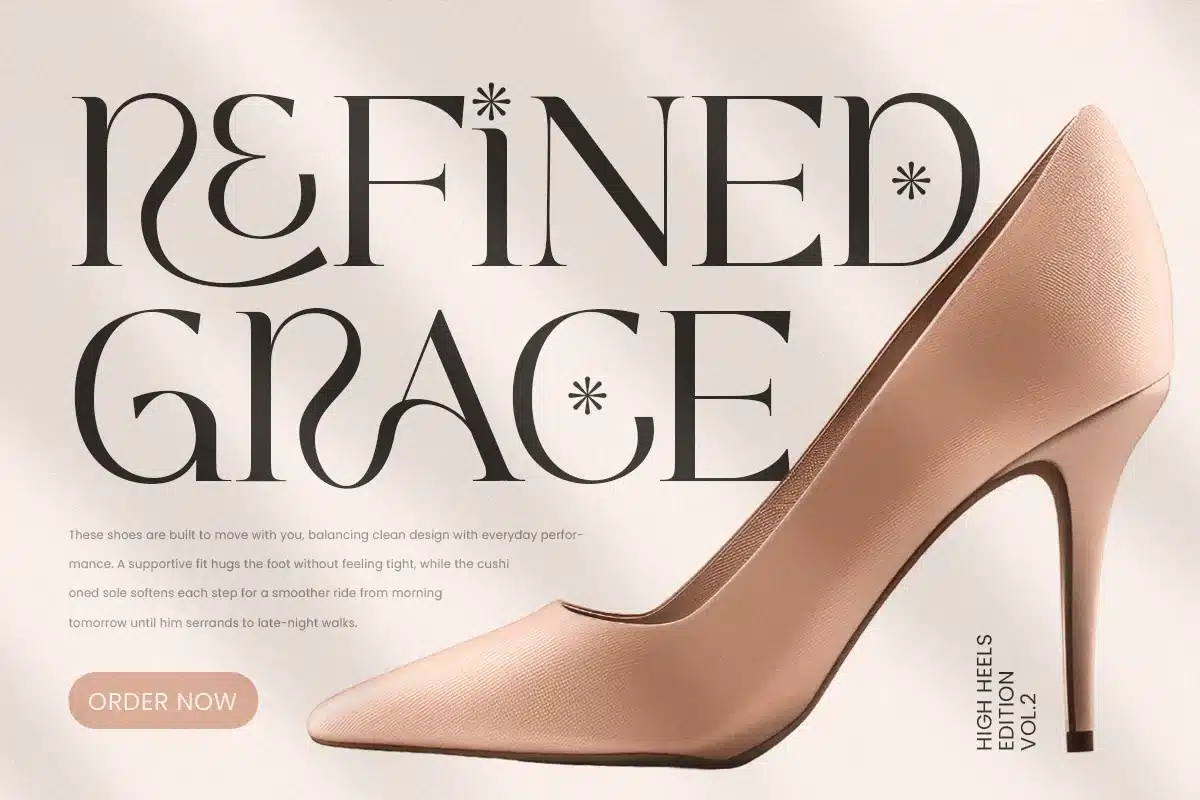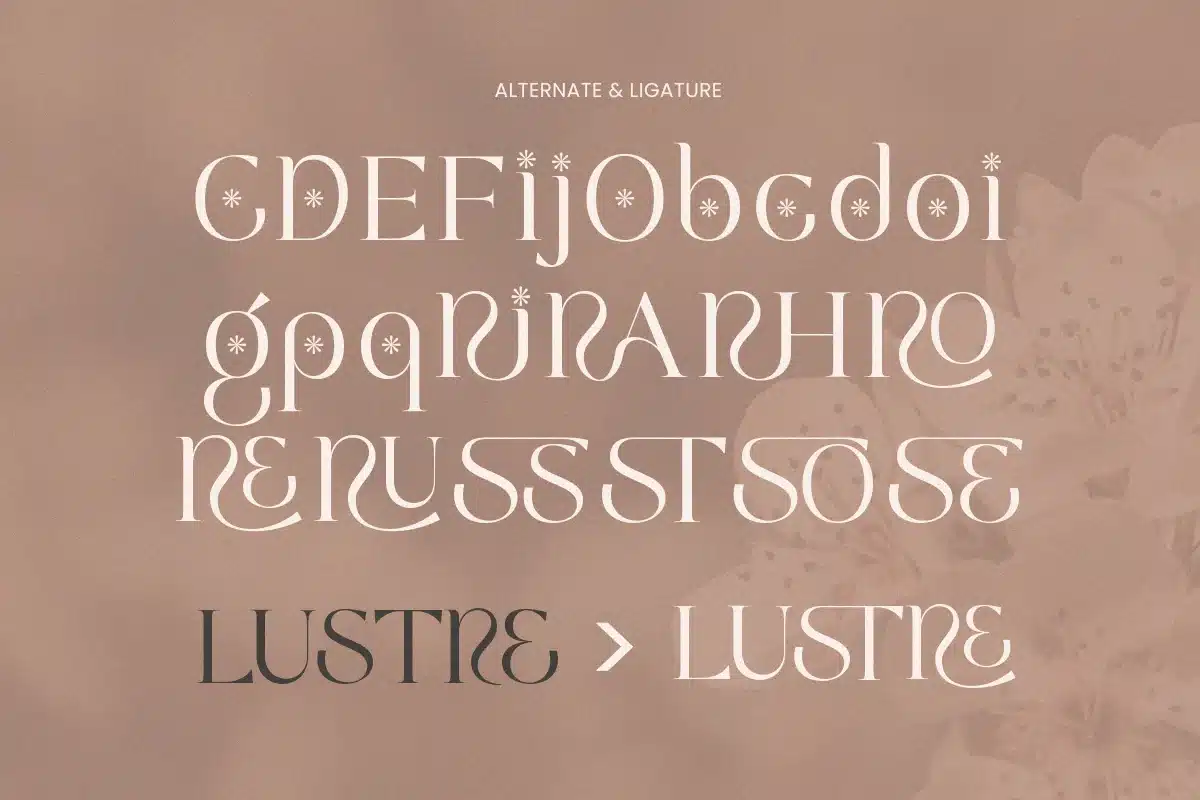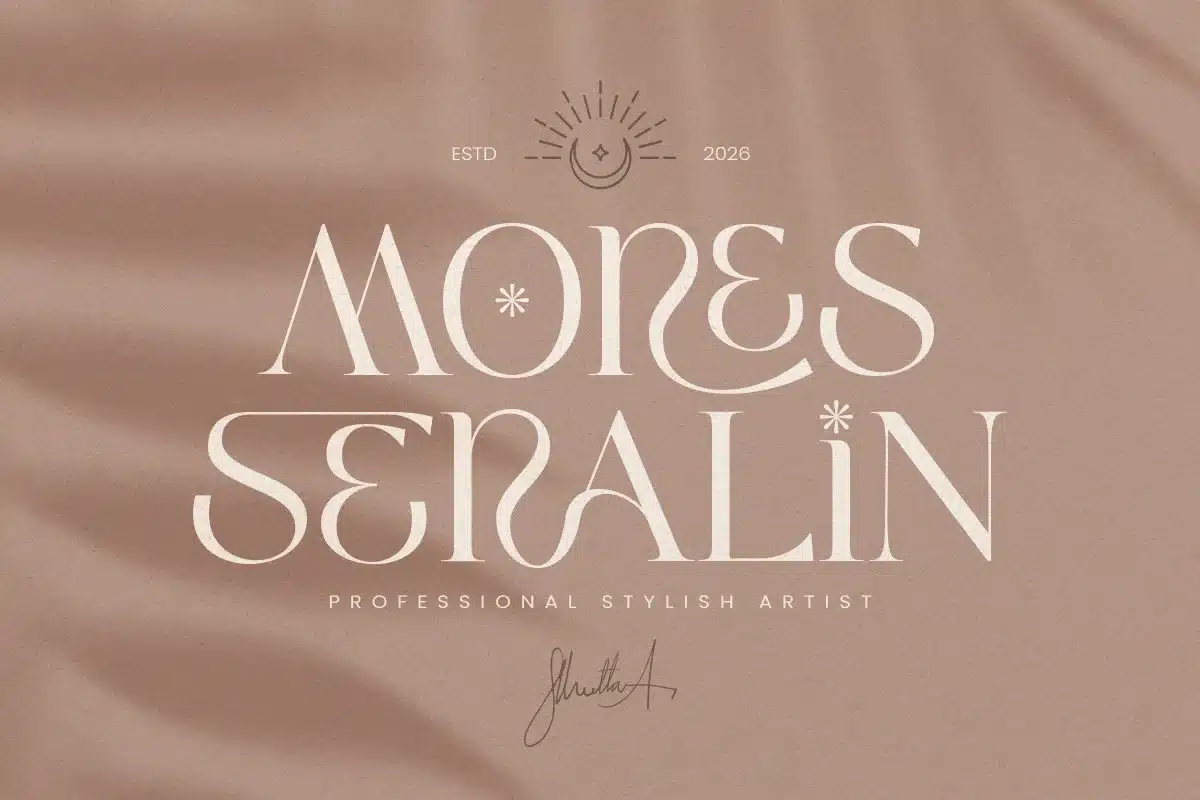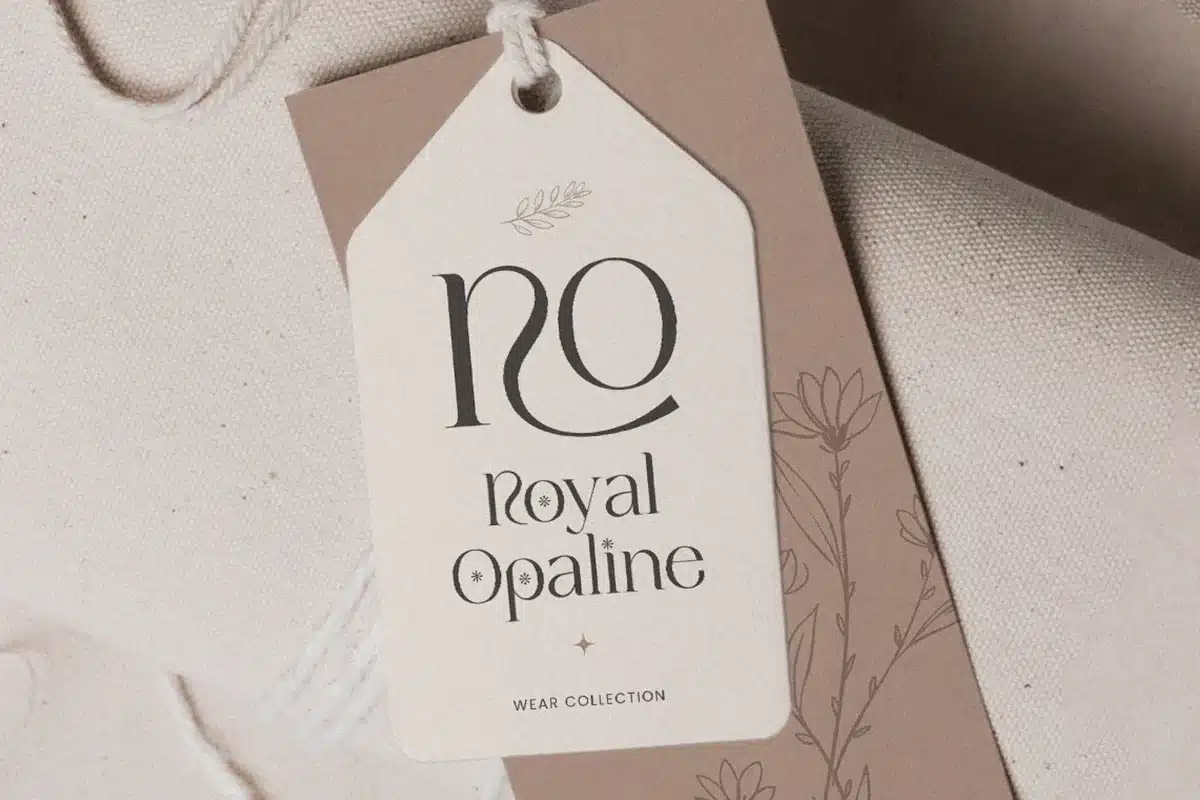
Sarine – Modern Classy Ligature Logo Font
SARINE is a modern classy ligature logo font crafted to deliver refined elegance with a clean, contemporary edge. Designed with smooth ligature connections and balanced letter proportions, this typeface creates a sophisticated rhythm that feels premium, stylish, and instantly brand-ready.
Built for branding-first typography, SARINE works beautifully across logos, wordmarks, identity systems, packaging, labels, website headers, editorials, invitations, signage, and modern marketing visuals. The ligatures add a bespoke touch that makes logotypes feel custom and polished, while the overall structure keeps everything crisp and readable across both digital and print layouts.
Whether you’re building a fashion label, elevating a beauty brand, developing boutique packaging, or creating an upscale editorial concept, SARINE provides a classy ligature foundation that makes your typography feel exclusive, modern, and unforgettable.
Inspiration Behind SARINE
SARINE is inspired by luxury editorial branding and modern logo systems—where elegant connections, clean spacing, and premium simplicity create a high-end signature. The design focuses on smooth ligature flow and refined structure to support sophisticated identities with a contemporary, classy presence.
SARINE Font Features:
- Modern classy ligature letterforms optimized for logo and wordmark design
- Refined structure with premium, high-end visual rhythm
- Stylish ligatures for a bespoke boutique signature feel
- High readability for headlines, branding, and editorial layouts
- OpenType features for polished professional typesetting
- Logos, wordmarks, and premium brand identity systems
- Fashion, beauty, skincare, fragrance, and boutique branding
- Editorial layouts, magazine covers, lookbooks, and headlines
- Luxury packaging, labels, invitations, and elegant stationery
- Social media campaigns, websites, ads, and marketing assets
Create a premium signature with SARINE—a modern classy ligature logo font built for elegant, high-end branding. ✨